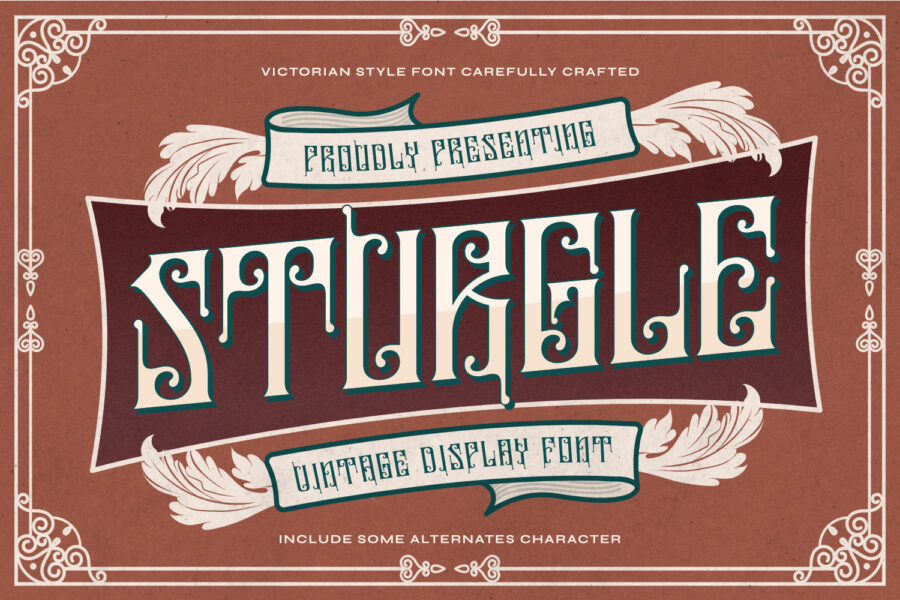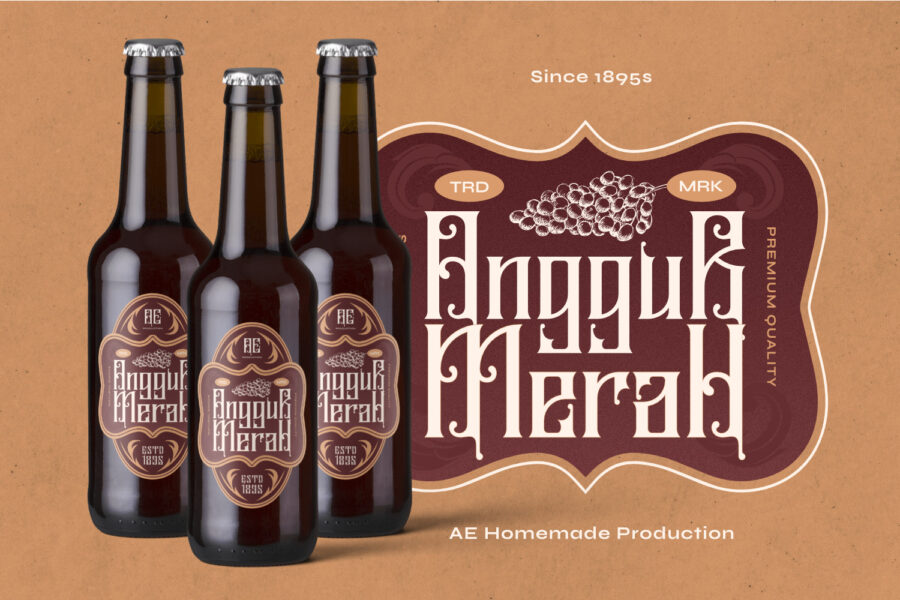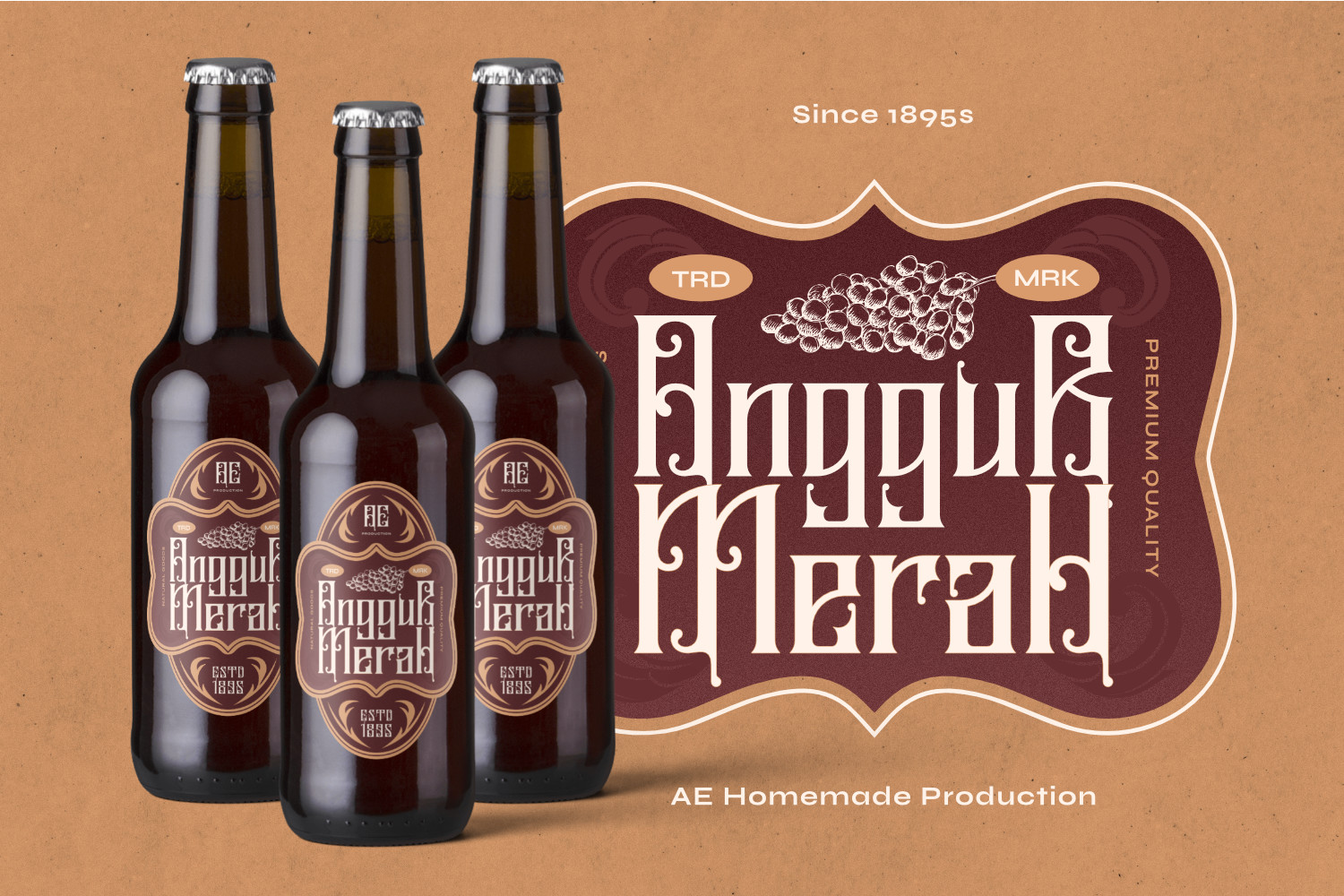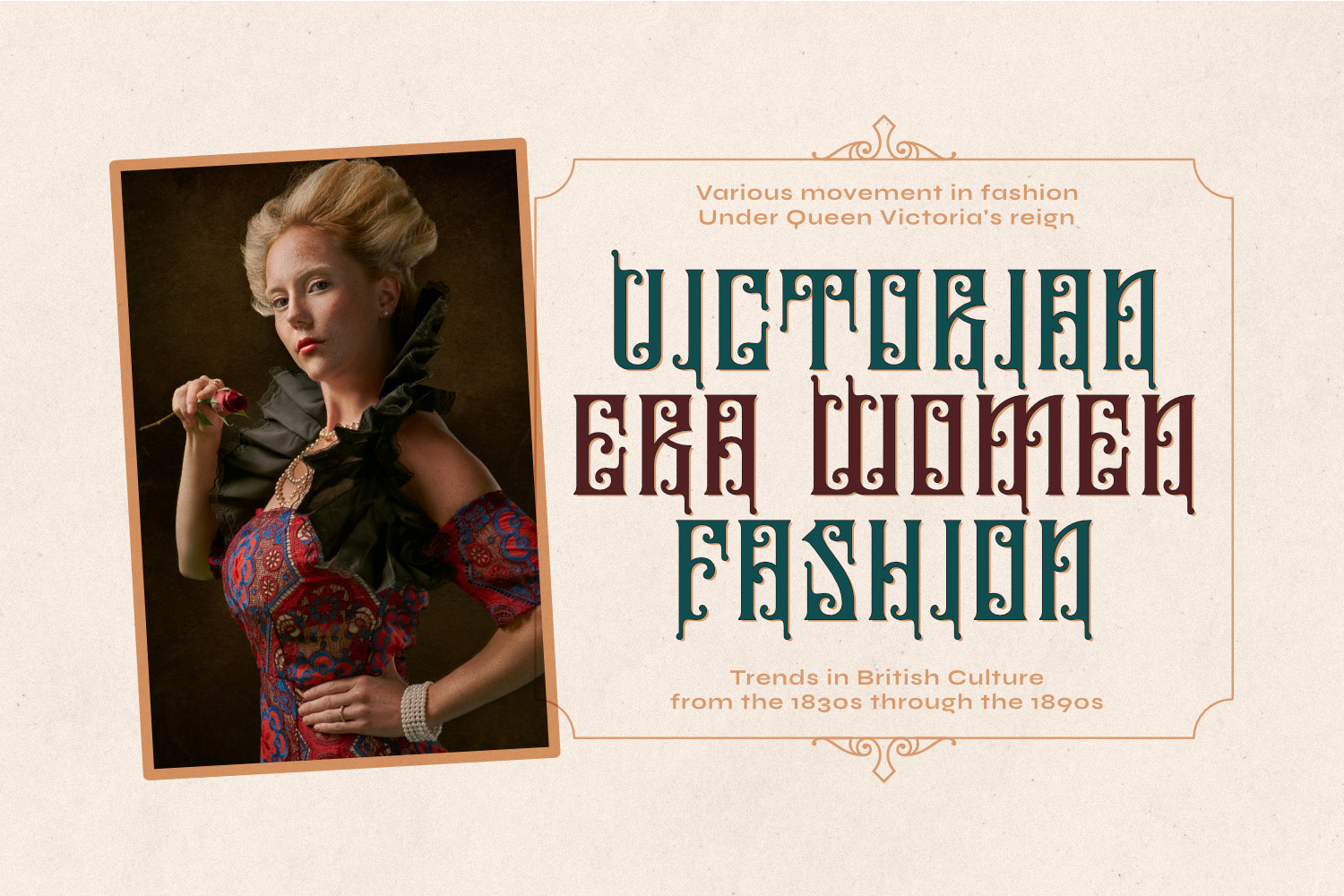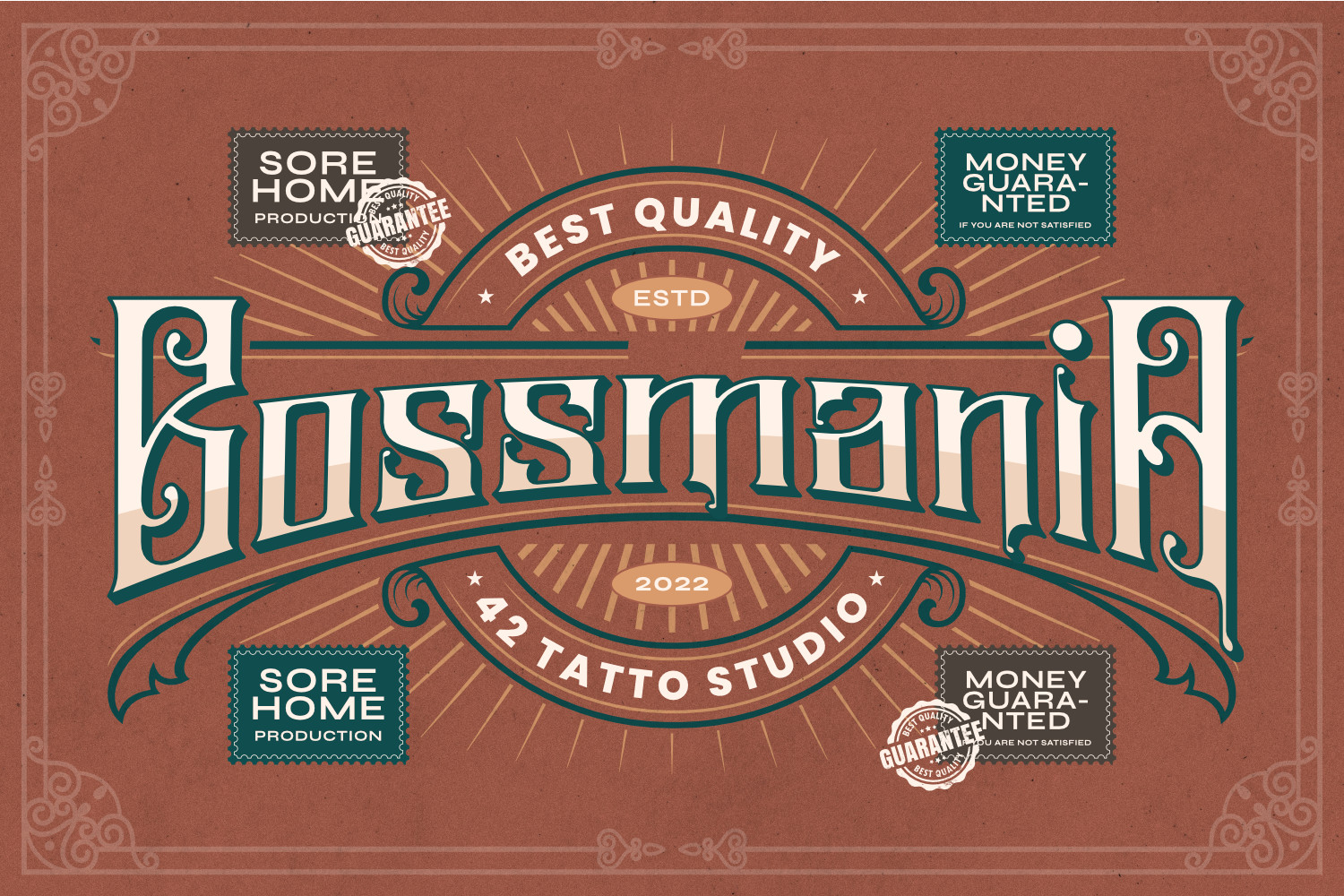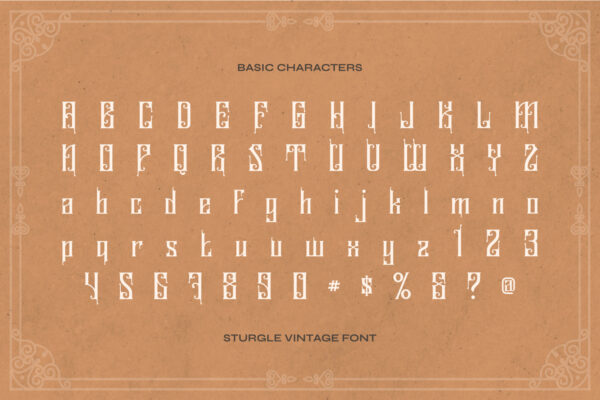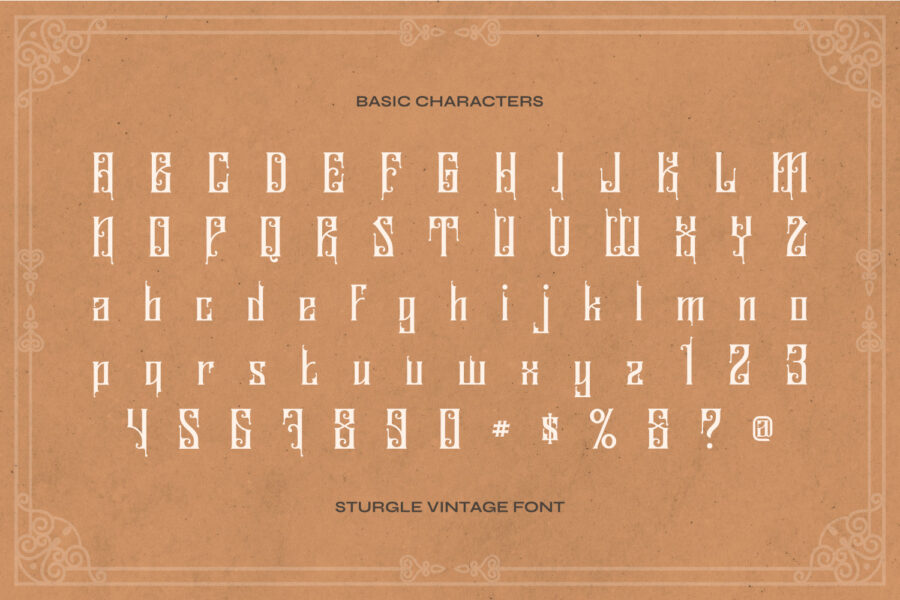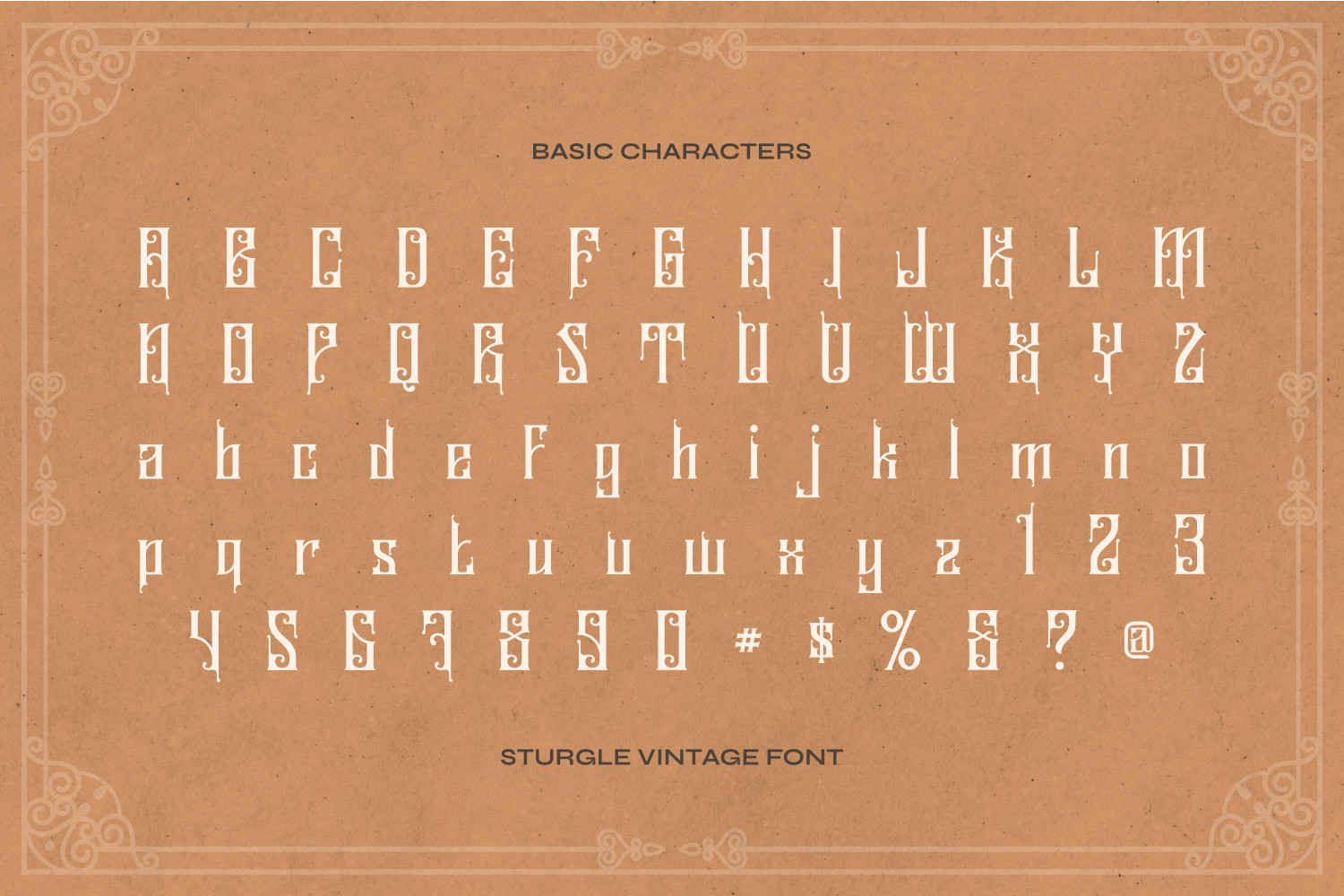
Sturgle is a striking Victorian-style display font inspired by ornate 19th-century letterforms. Carefully crafted with high contrast strokes, elaborate serifs, and decorative alternates, this typeface brings a dramatic flair to headlines and packaging. It exudes historical elegance, perfect for vintage-themed branding, liquor labels, and retro fashion editorials.
With its blend of nostalgic charm and strong personality, Sturgle is ideal for designers looking to recreate the charm of the past with modern usability. It includes uppercase, lowercase, numbers, symbols, ligatures, stylistic alternates, and multilingual support. Making it a versatile choice for both digital and print compositions.
Sturgle